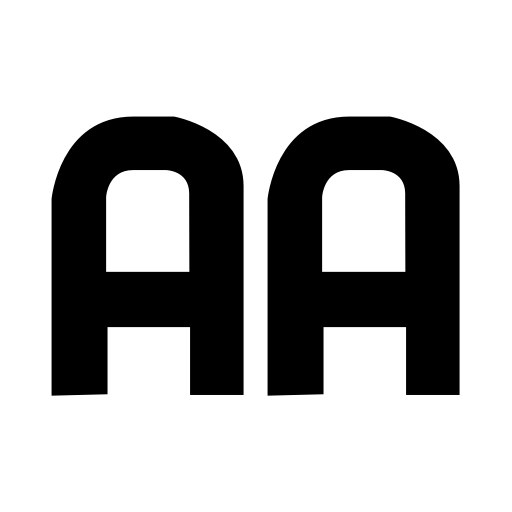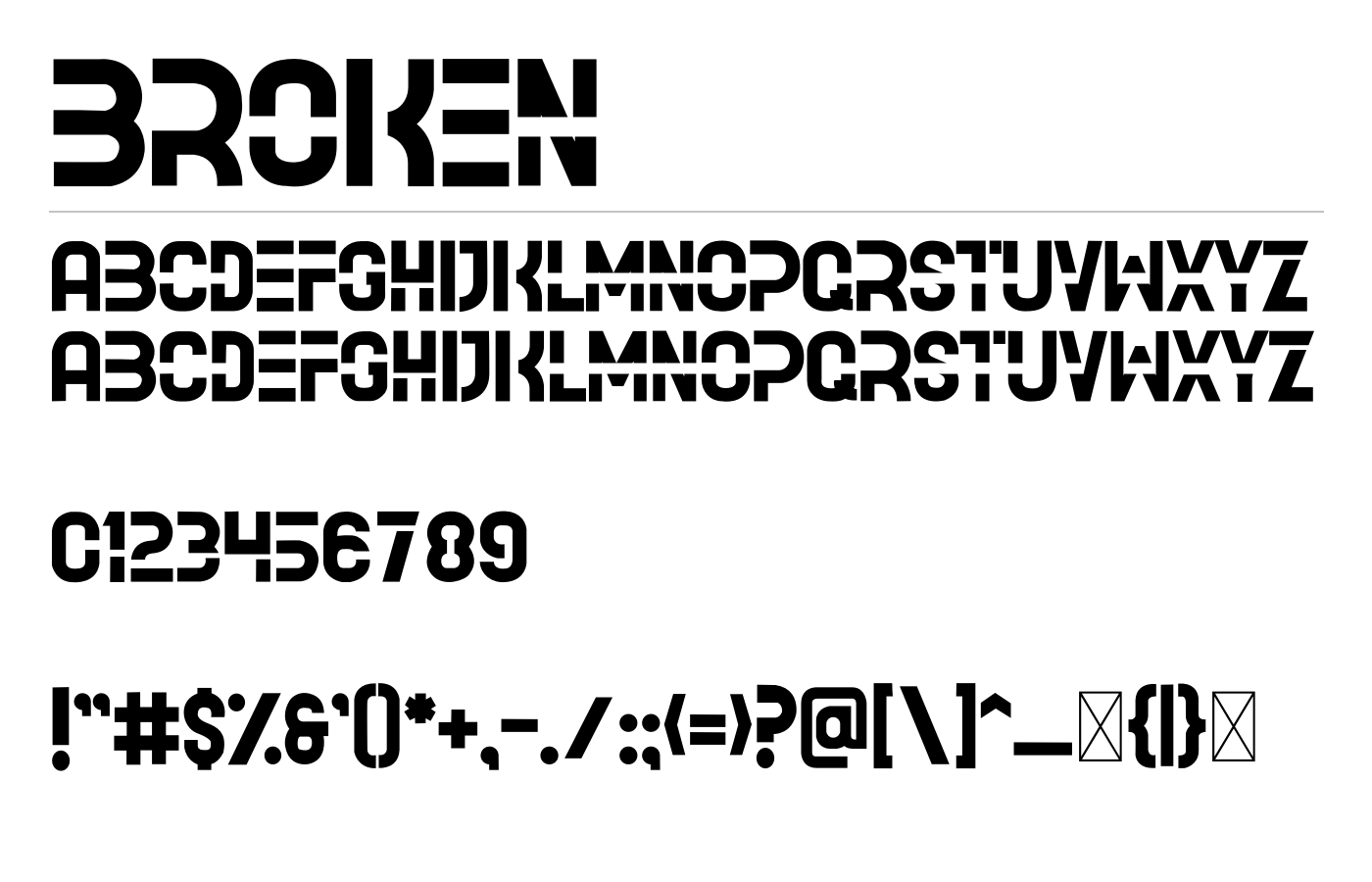
Broken Font is a bold, stencil-inspired sans serif typeface characterized by strong geometric shapes and distinctive gaps that create a fragmented, modern look. Its wide, uppercase-only letterforms convey a sense of tech-savvy innovation and edgy style, making it ideal for striking headlines, logos, and branding in futuristic or urban design contexts. This font stands out with its high contrast and clean breaks, ensuring high visibility while adding a dynamic, contemporary personality.
Broken Font